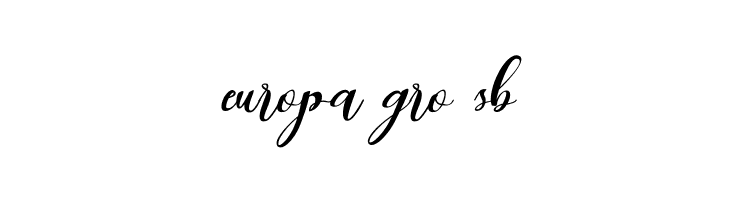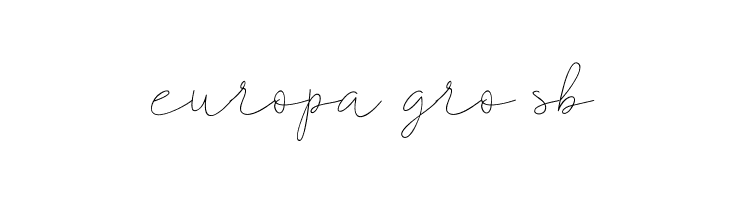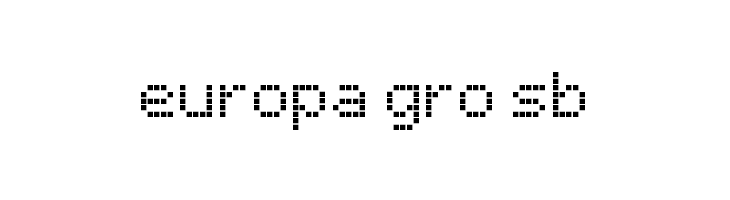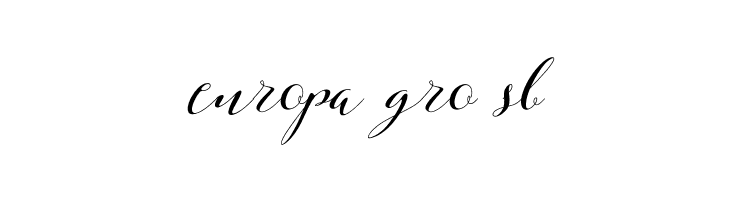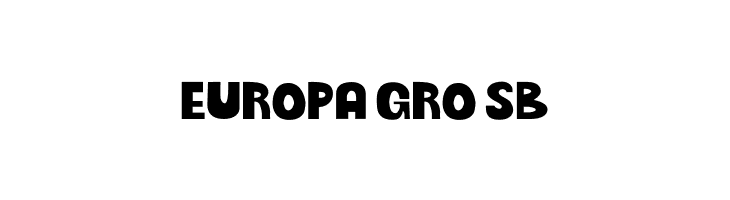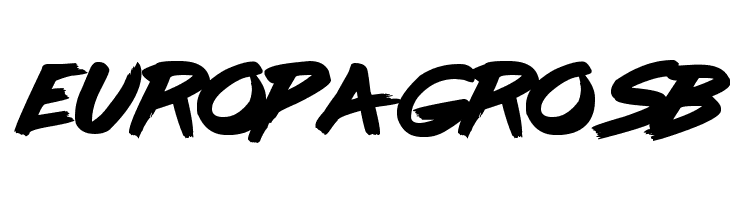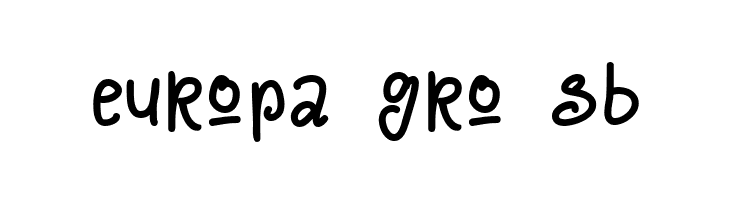
( Pathero Studio - www.patherostudio.com )
A bold, cursive font with dynamic, sweeping strokes and a handwritten feel.
( Twicolabs Fontdation - Fahrizal Tawakkal - fontdation.com )
A bold, classic serif font with a modern twist, featuring sharp edges and elegant curves.
( Twicolabs Fontdation - Fahrizal Tawakkal - fontdation.com )
A bold serif font with sharp, angular serifs and a modern yet classic style.
( OldStudioo - Muhammad Ilham - www.fontdraft.com )
A flowing, elegant script font with high contrast and graceful swashes.
( Rachma BT - bit.ly/bonjourtype )
An elegant script font with intricate flourishes and a sophisticated style.
( Sunrise Digital - Juan Hodgson - sunrise-digital.net/lazer84/ )
A bold, brush-style font with dynamic and expressive strokes.
( Typia Nesia - www.myfonts.com/foundry/Typia_Nesia/ )
A playful, handwritten font with smooth curves and a casual style.
( Skyhaven Fonts - fonts.plph.co )
A bold, playful font with rounded characters and a relaxed aesthetic.
( Omer KOSE - www.omerkose.net )
A dot matrix font inspired by vintage LCD displays.
( OldStudioo - Muhammad Ilham - www.fontdraft.com )
A delicate and elegant script font with flowing, graceful strokes.